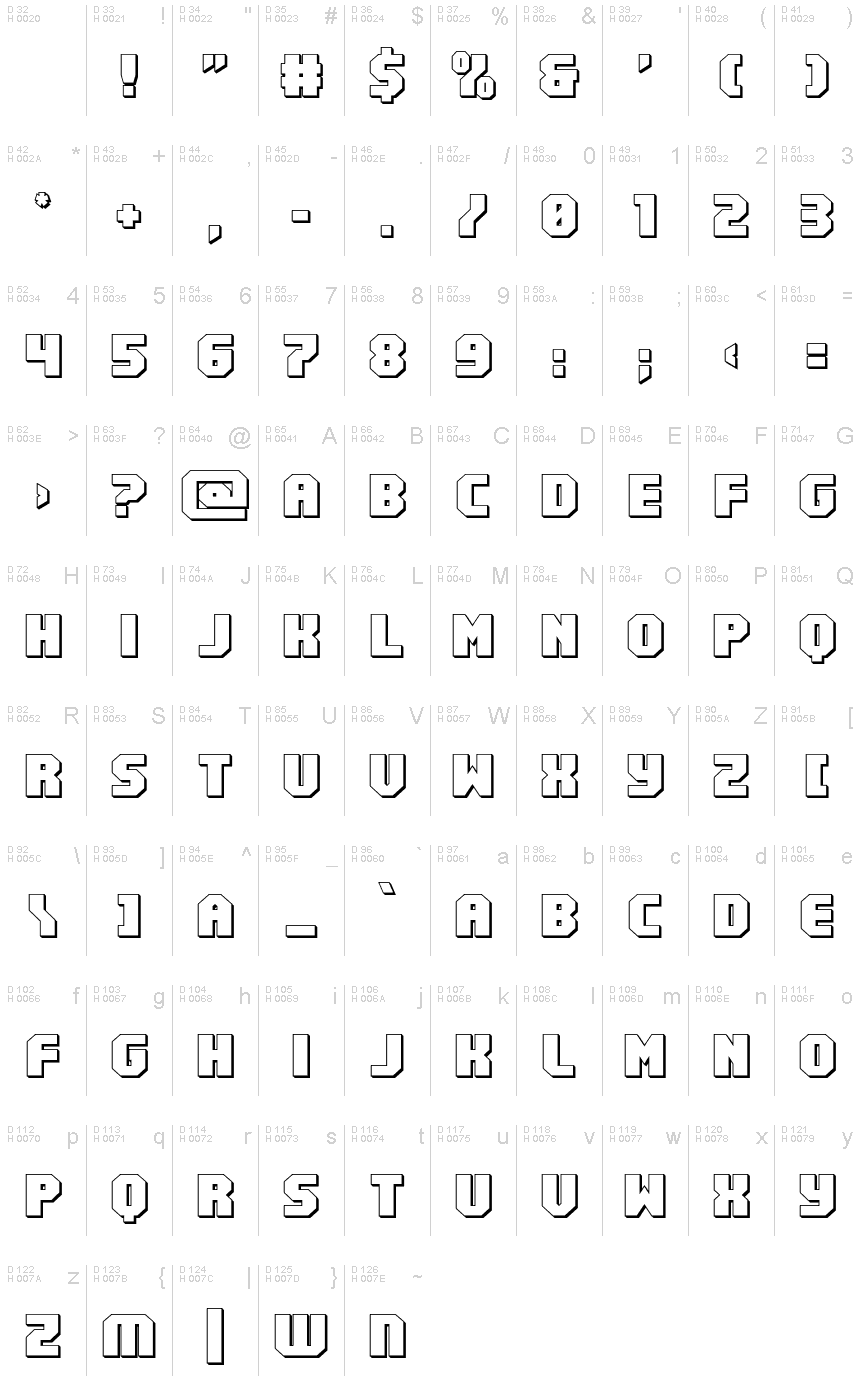
Metal Sentinel 3D
Metal Sentinel 3D is a bold, wide display font designed by Daniel Zadorozny. Its 3D techno style makes it the perfect choice for projects that require an eye-catching and modern look. It's great for branding and logo design, advertising campaigns, posters, flyers, packaging and apparel designs. Metal Sentinel 3D adds a unique touch to any project!